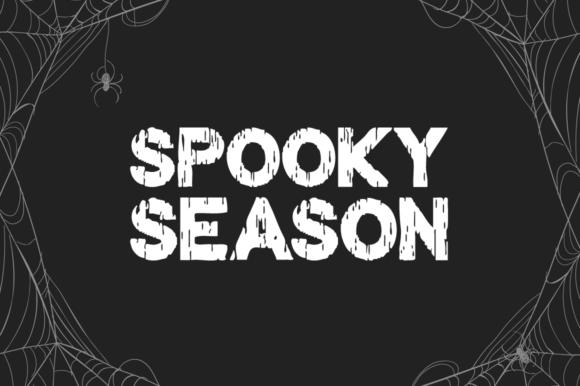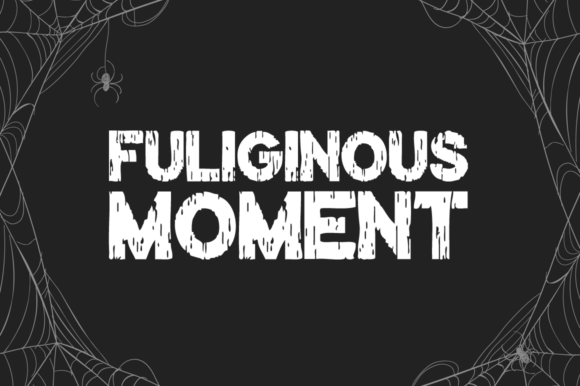
Fierce Ghostly Font: Elevate Your Designs with a Bold and Chunky Lettered Display Font
Are you tired of using the same old fonts in your designs? Do you want to add a touch of uniqueness and boldness to your creative projects? Look no further than the Fierce Ghostly Font! This bold and chunky lettered display font is perfect for designers and crafters who want to make their ideas stand out from the crowd.
What is Fierce Ghostly Font?
Fierce Ghostly Font is a display font that is designed to make a statement. Its bold and chunky letters are perfect for creating eye-catching headlines, titles, and captions. The font is inspired by the spooky and mysterious, with a ghostly feel that adds a touch of eeriness to your designs.
Key Features of Fierce Ghostly Font
- Bold and Chunky Letters: The font features bold and chunky letters that are perfect for creating eye-catching headlines and titles.
- Ghostly Feel: The font has a ghostly feel that adds a touch of eeriness to your designs.
- Display Font: Fierce Ghostly Font is a display font that is designed to be used for headlines, titles, and captions.
- Easy to Read: Despite its bold and chunky design, the font is easy to read, making it perfect for use in a variety of design projects.
How to Use Fierce Ghostly Font in Your Designs
Fierce Ghostly Font is a versatile font that can be used in a variety of design projects, including:
- Graphic Design: Use the font to create eye-catching posters, flyers, and brochures.
- Digital Design: Use the font to create bold and eye-catching social media graphics, blog posts, and website headers.
- Crafting: Use the font to create unique and personalized crafts, such as signs, banners, and iron-on designs.
Benefits of Using Fierce Ghostly Font
Using Fierce Ghostly Font in your designs can have a number of benefits, including:
- Increased Visibility: The bold and chunky design of the font makes it perfect for creating eye-catching headlines and titles that grab attention.
- Unique Look: The ghostly feel of the font adds a touch of eeriness to your designs, making them stand out from the crowd.
- Easy to Use: The font is easy to read and use, making it perfect for designers and crafters of all skill levels.
Tips for Getting the Most Out of Fierce Ghostly Font
Here are a few tips for getting the most out of Fierce Ghostly Font:
- Use it Sparingly: Because of its bold and chunky design, it’s best to use Fierce Ghostly Font sparingly in your designs. Use it for headlines and titles, and a simpler font for body text.
- Experiment with Colors: The font looks great in a variety of colors, so don’t be afraid to experiment and find the perfect color for your design.
- Pair it with Other Fonts: Fierce Ghostly Font pairs well with a variety of other fonts, so don’t be afraid to experiment and find the perfect combination for your design.
Fierce Ghostly Font is a bold and chunky lettered display font that is perfect for designers and crafters who want to add a touch of uniqueness and boldness to their creative projects. With its ghostly feel and easy-to-read design, it’s perfect for use in a variety of design projects, from graphic design to crafting. So why not give it a try and see how it can elevate your designs?